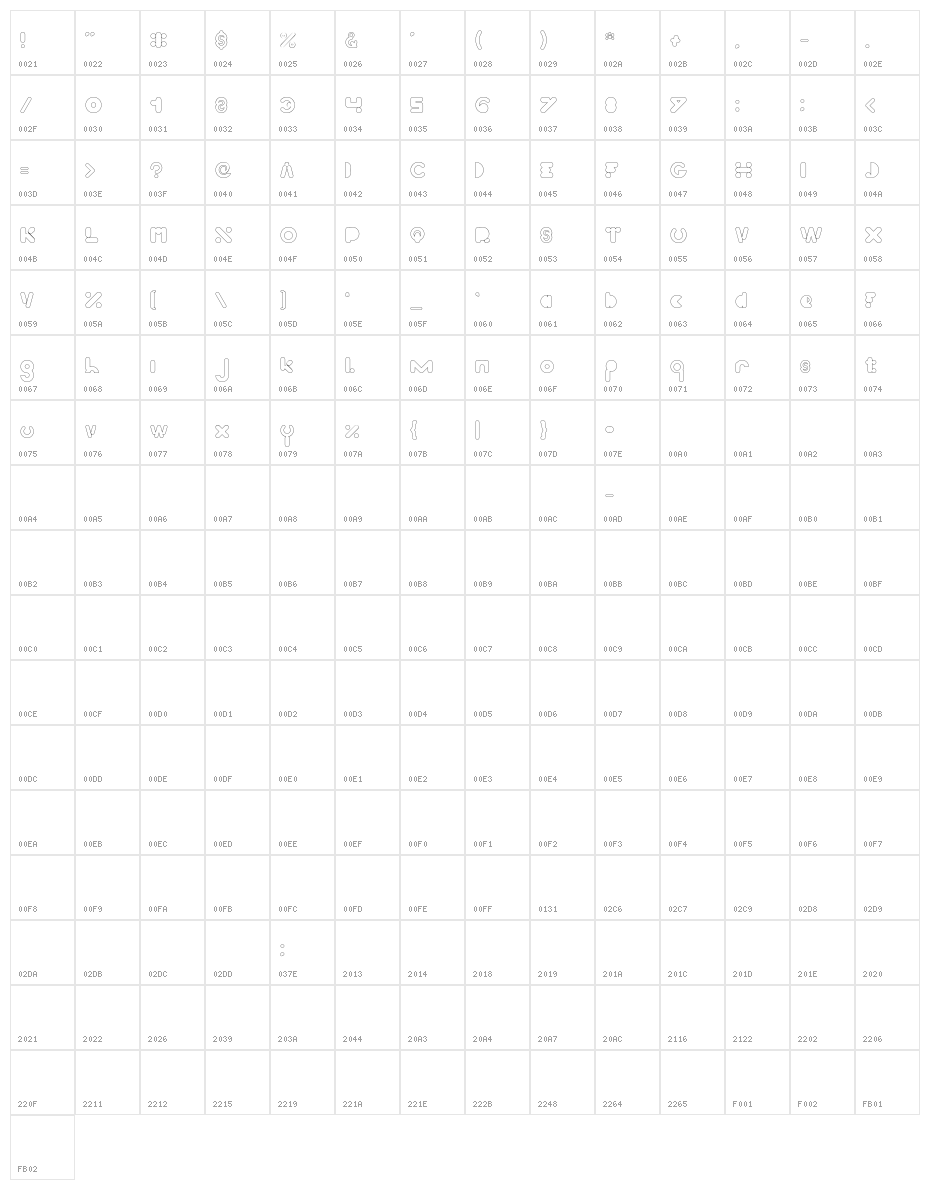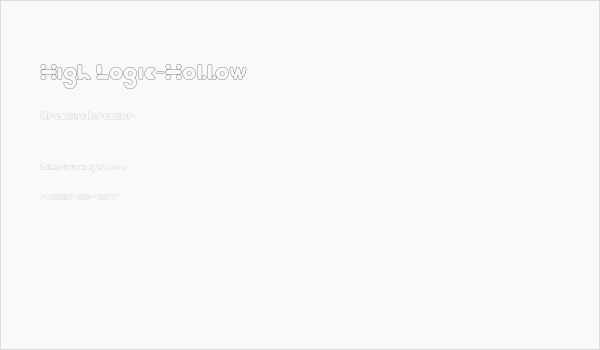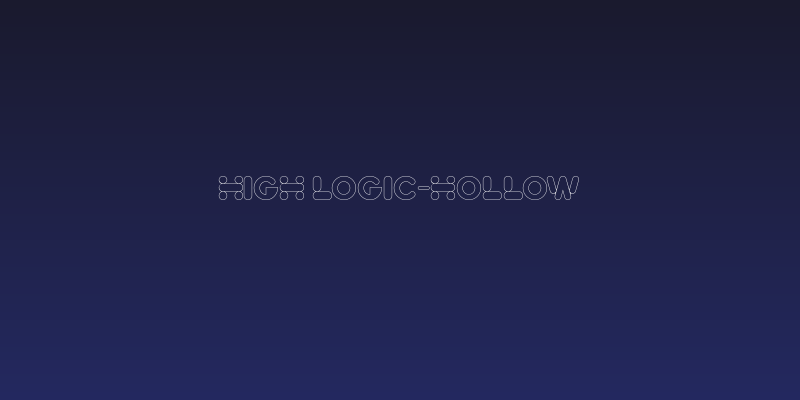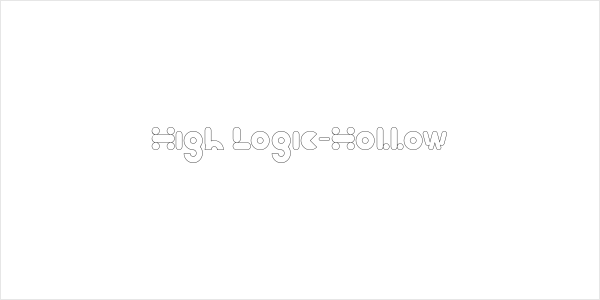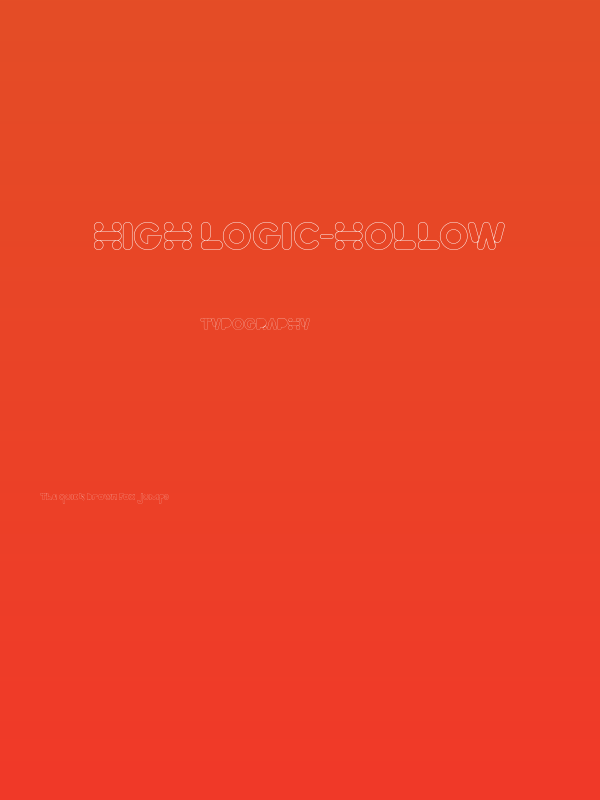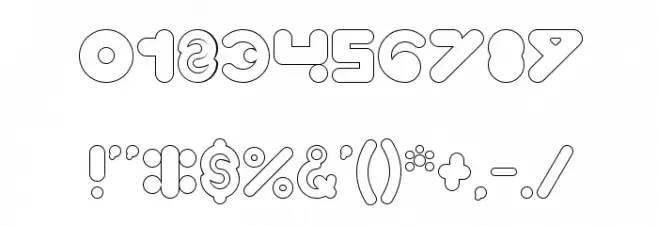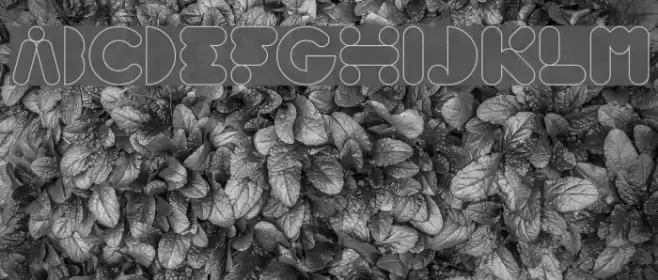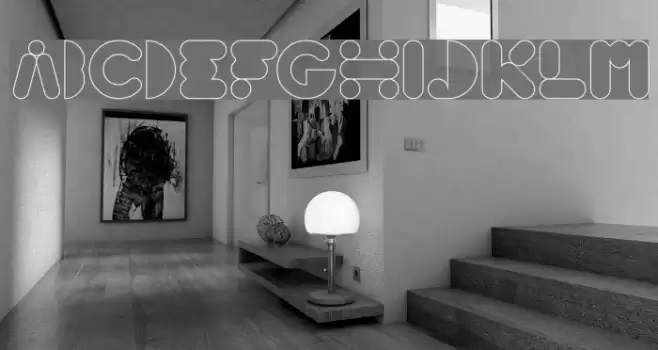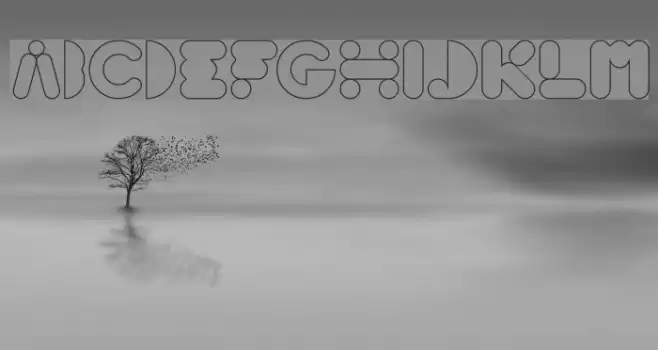
High Logic-Hollow Font
High Logic-Hollow Description
This font features a unique hollow design with rounded edges and geometric shapes, creating a playful and modern aesthetic. Each character is outlined, giving it a three-dimensional appearance. The uppercase and lowercase letters maintain a consistent style, with smooth curves and a uniform thickness throughout. The numerals and special characters follow the same design principles, ensuring cohesion across all elements. This font's distinct style makes it stand out, offering a fresh take on traditional typography.